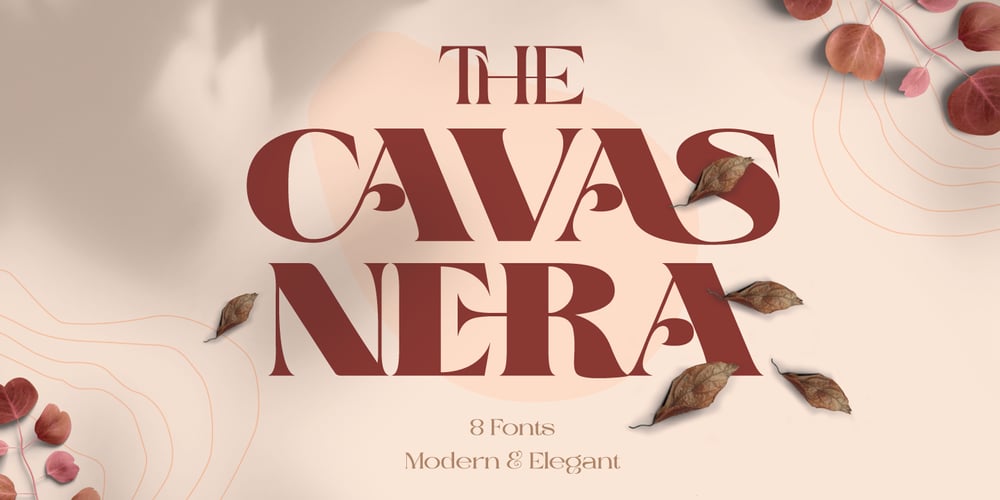
Cavas Nera
Cavas Nera font
Cavas Nera Font Family was designed by Ekayasa and published by Authentype. Cavas Nera contains 9 styles and family package options. Cavas Nera modern & elegant font with discretionary ligatures that give each word a different shape. Also contains a swash with an elegant, contrasting, and clean, perfect for logo designs, posters, and various types of promotional media. Including 8 Font weight Thin, ExtraLight, Light, Medium, SemiBold, Bold, ExtraBold, Black. – Standard glyphs uppercase and lowercase letters– Numerals, a large range of punctuation and ligatures.– Swashes.– Multilingual– Works on PC & Mac.Simple installations, accessible in Adobe Illustrator, Adobe Photoshop, Adobe InDesign, even work on Microsoft Word.PUA Encoded Characters – Fully accessible without additional design software.Fonts include multilingual support for; ä ö ü Ä Ö Ü ß ¿¡_________________________________________________________________________________________Image used: All photographs/pictures/logo/vectors used in the preview are not included, they are intended for illustration purposes only.Thank you for your purchase!Hope you enjoy our font!